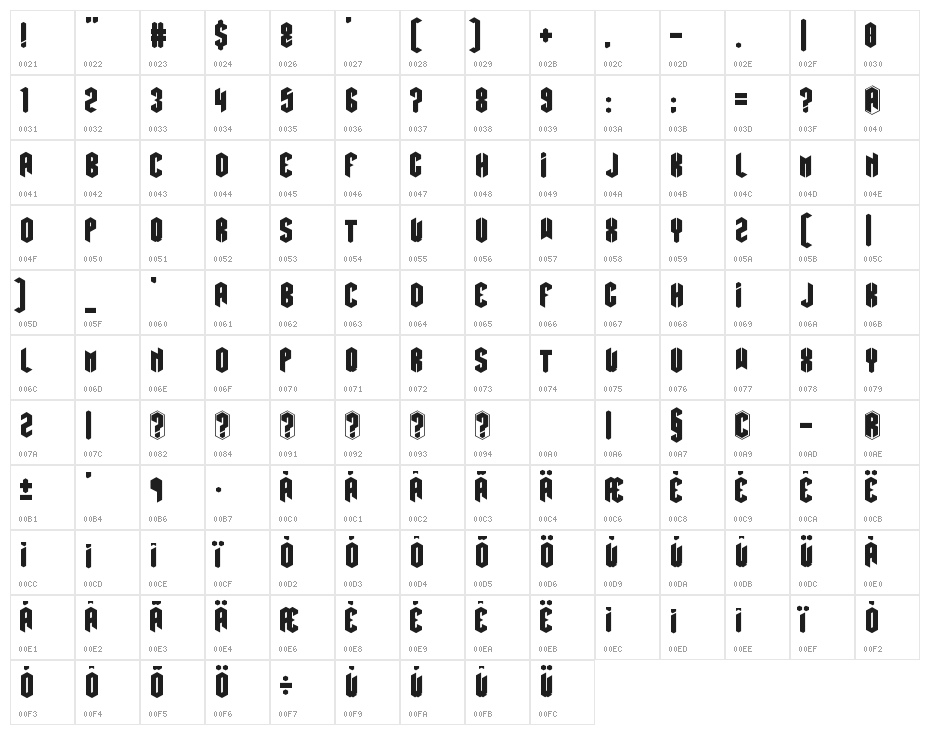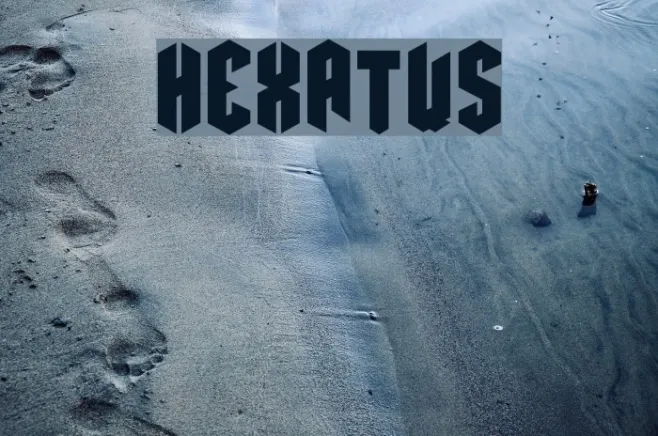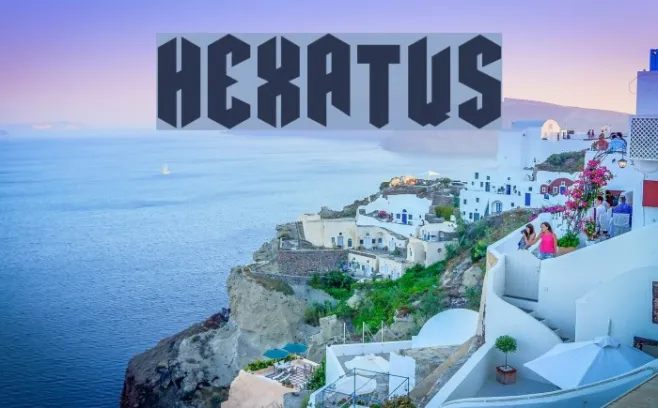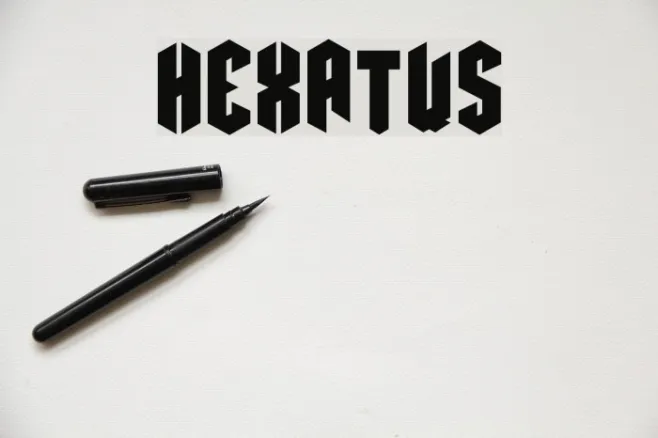
Hexatus Font
Hexatus Description
This font features a bold, geometric design with sharp angles and a strong presence. The characters are blocky and robust, creating a sense of solidity and impact. The uppercase and lowercase letters maintain a consistent style, with the lowercase slightly smaller but equally bold. Numbers and special characters follow the same design principles, ensuring uniformity across all glyphs. The font's angular nature gives it a modern and edgy feel, suitable for attention-grabbing headlines or logos. Its distinct style makes it stand out, making it ideal for projects that require a strong visual identity.
| Proposed Projects | Ideal for branding, logos, posters, and headlines that require a strong visual impact. |